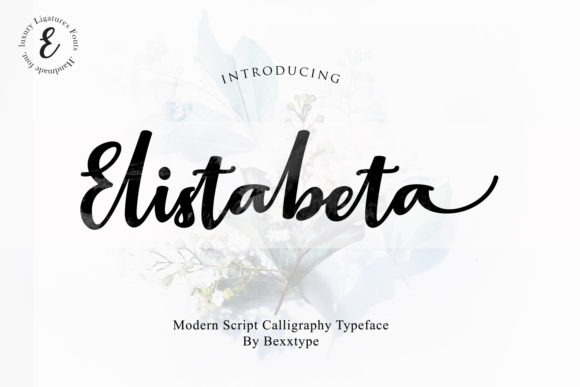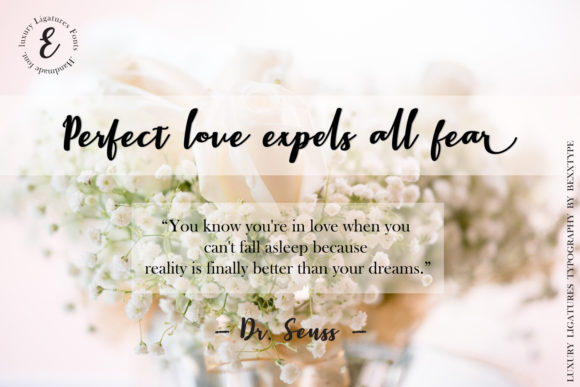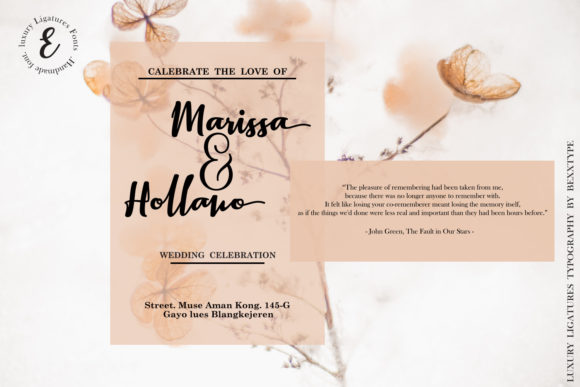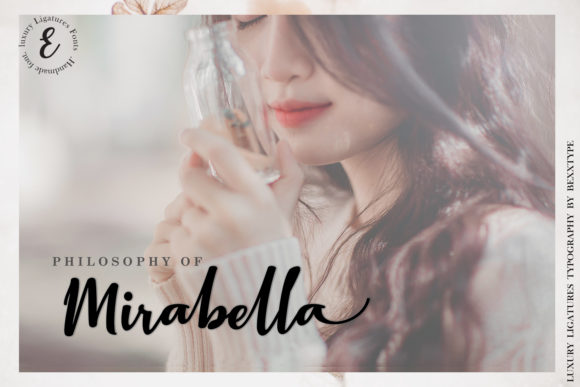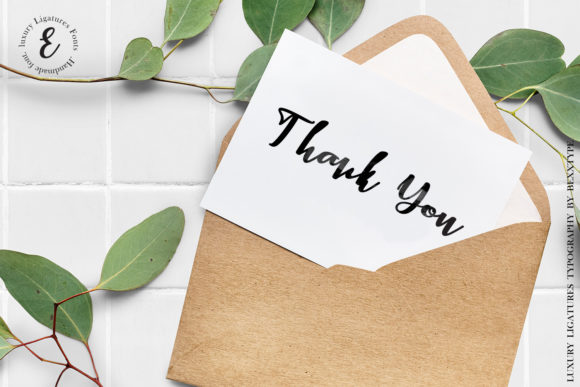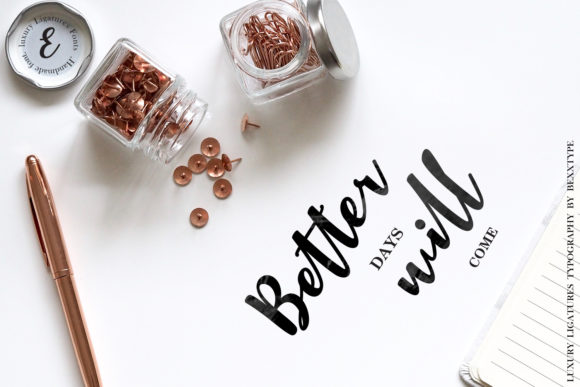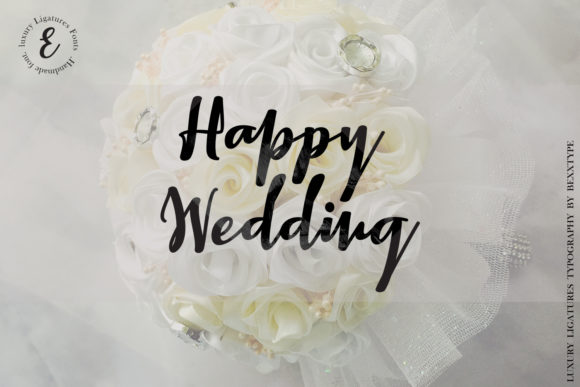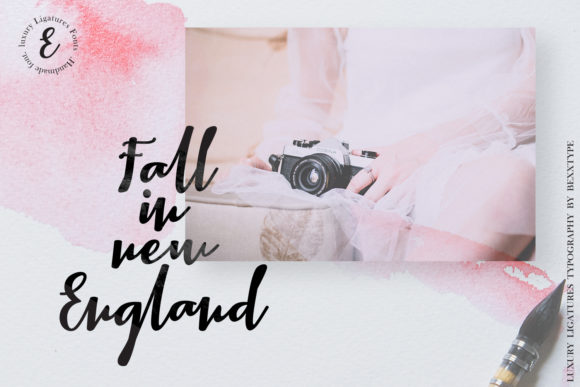
Elistabeta Script Font
About Elistabeta Script Font
The Elistabeta is an elegant calligraphy font. It has a fresh and modern feel with decorative characters and a dancing baseline.
It can be used for business cards, quotes, posters, headlines, wedding stationary, and much more!